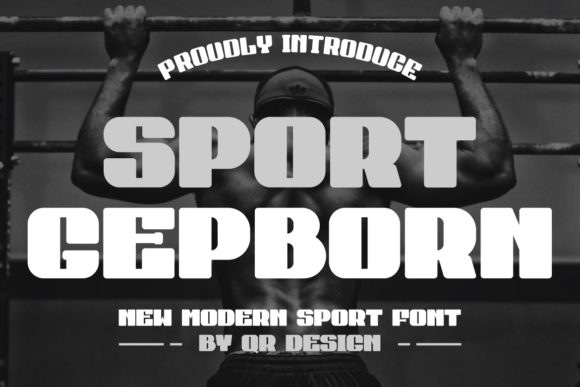
Dive into the world of sports-inspired typography with Sport Gepborn, the bold and authentic display font that will take your designs to new heights. Unleash your creativity and leave an unforgettable impact with this captivating font, crafted by the visionary qrdesignstd.
With its strong and striking appearance, Sport Gepborn is the perfect choice for branding projects that demand attention. Create logos that exude power and energy, design T-shirts that ignite passion and drive, and bring a touch of athleticism to any project that comes your way. This font is a game-changer for sports-related designs, capturing the essence of competition, teamwork, and the pursuit of greatness.
Beyond its sporty appeal, Sport Gepborn's versatility extends to a wide range of projects. Its bold strokes and unique letterforms make it an ideal choice for headlines, posters, social media graphics, and any design element that requires a bold statement. Whether you're creating marketing materials, website designs, or eye-catching invitations, Sport Gepborn will elevate your visuals and leave a lasting impression.
Don't settle for ordinary fonts. Embrace the dynamic energy of Sport Gepborn and watch your designs soar. Its powerful presence will transform your creative vision into a tangible masterpiece, captivating audiences and leaving them in awe.